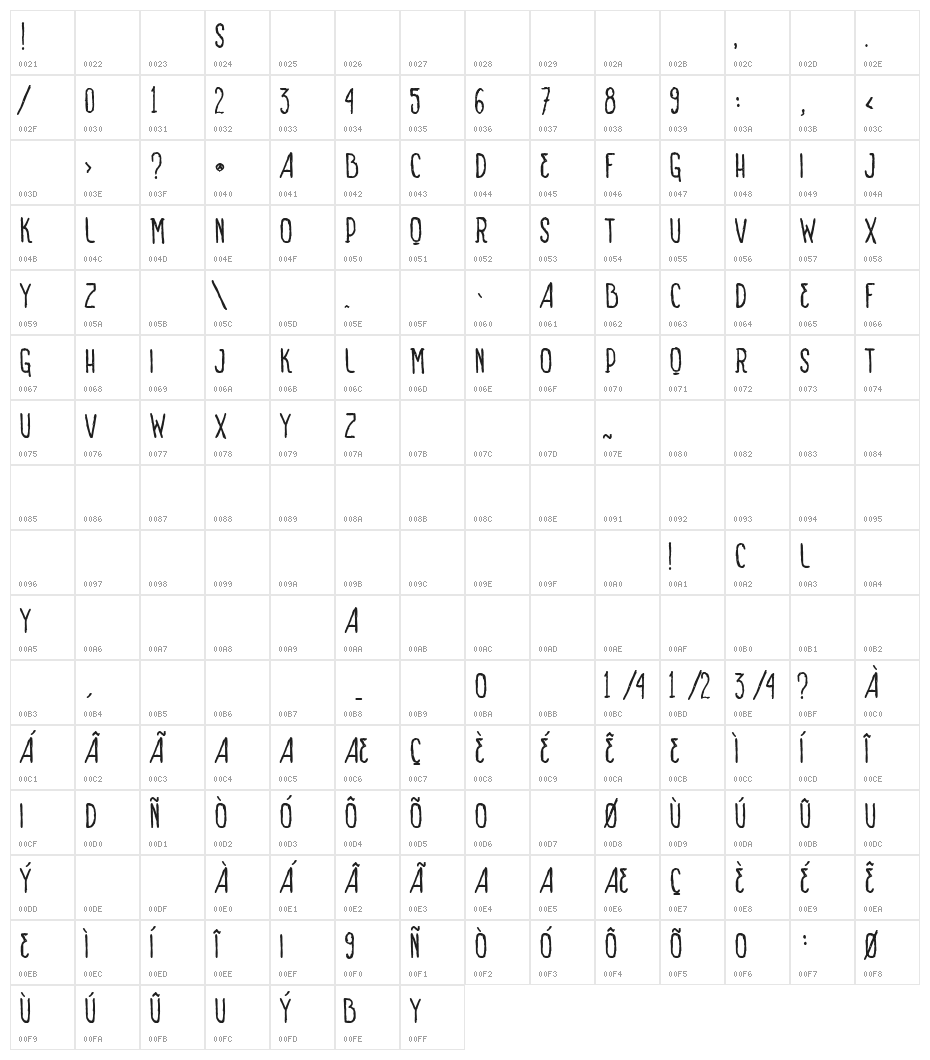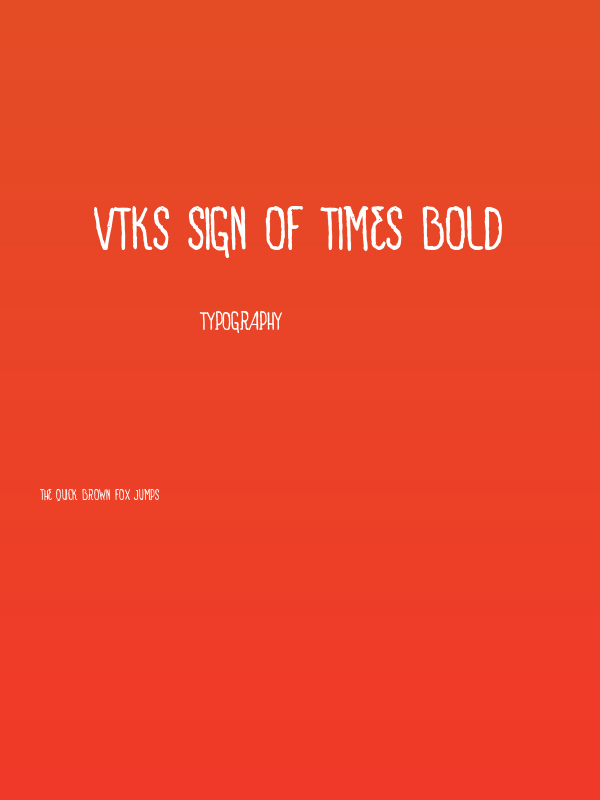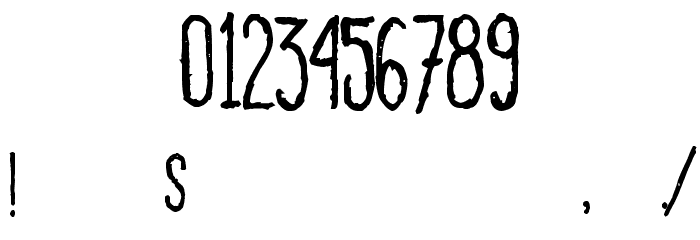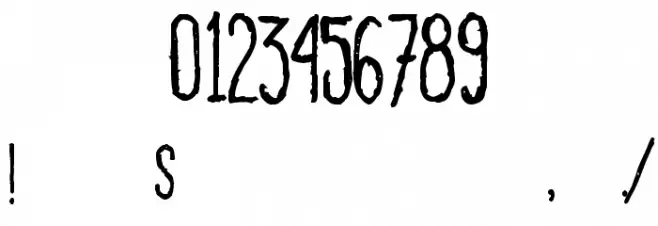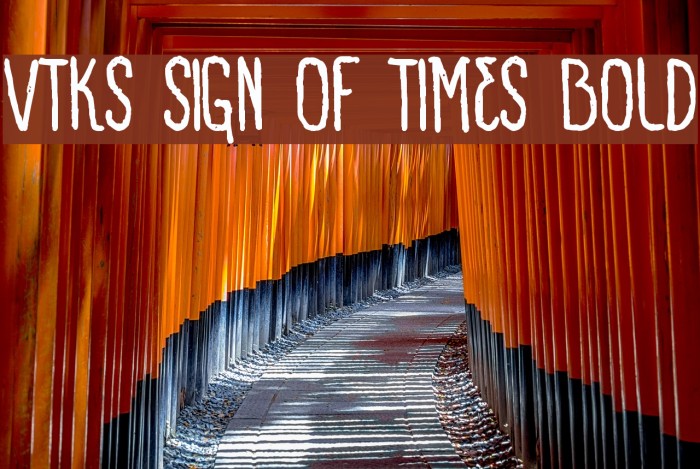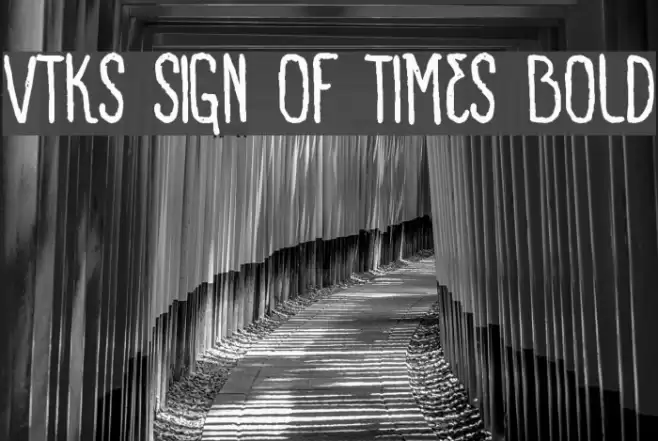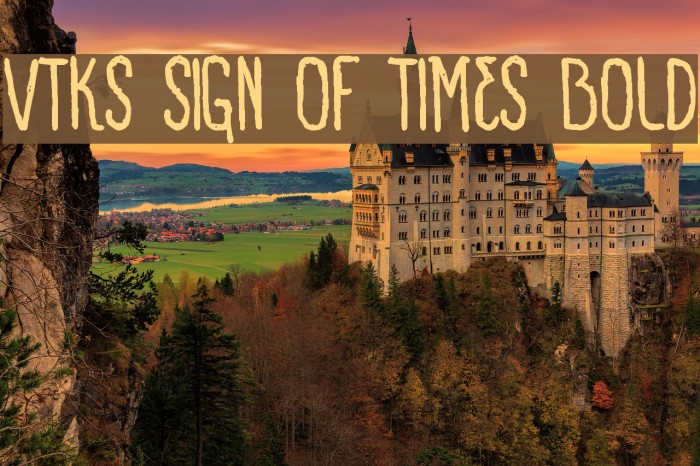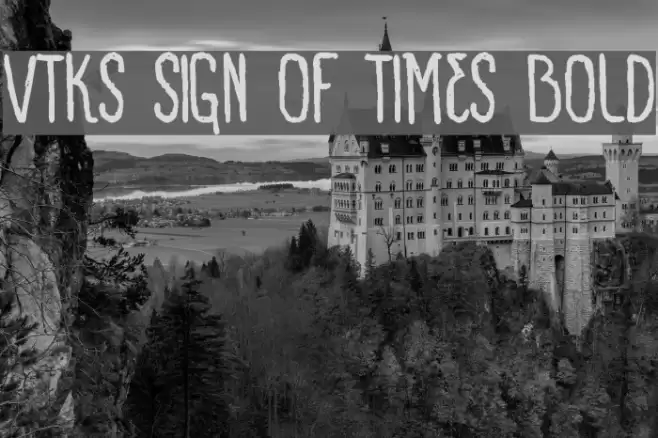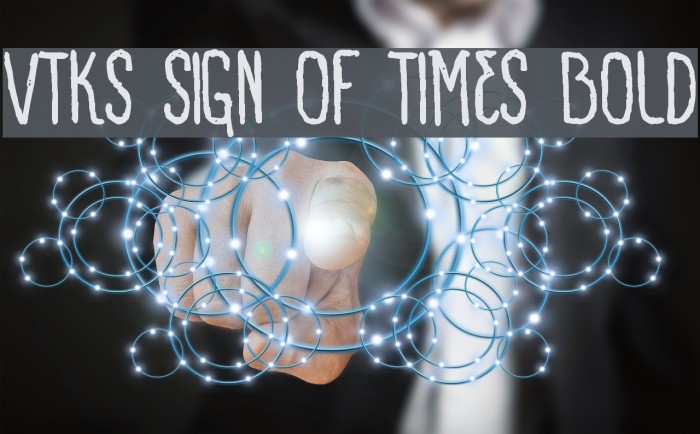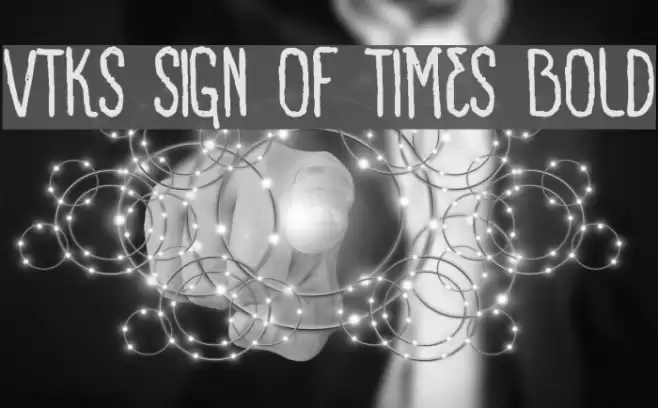
VTKS SIGN OF TIMES bold Font
VTKS SIGN OF TIMES bold Description
This font features a bold, hand-drawn style with a slightly distressed appearance, giving it a vintage and rustic feel. The letters are tall and narrow, with uneven strokes that add a sense of authenticity and character. The uppercase and lowercase letters maintain a consistent style, while the numbers and special characters complement the overall design. The font's rough edges and irregularities make it ideal for projects that require a touch of nostalgia or a handcrafted look.
| Overall Style | Vintage |
| Use Case | Logos, Headlines, Posters |
| Proposed Projects | Ideal for vintage-themed posters, rustic branding, handmade product packaging, and artistic book covers. |